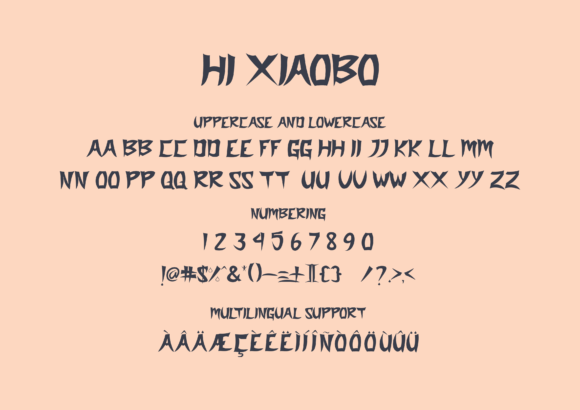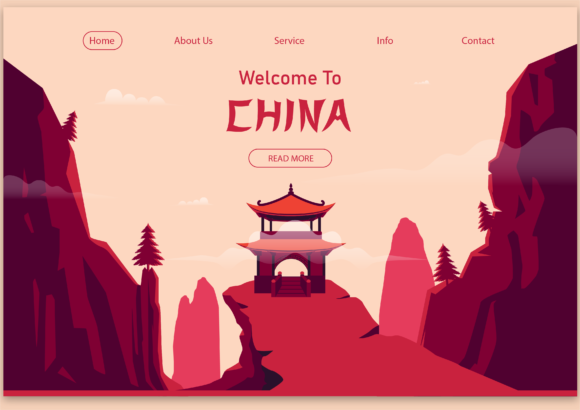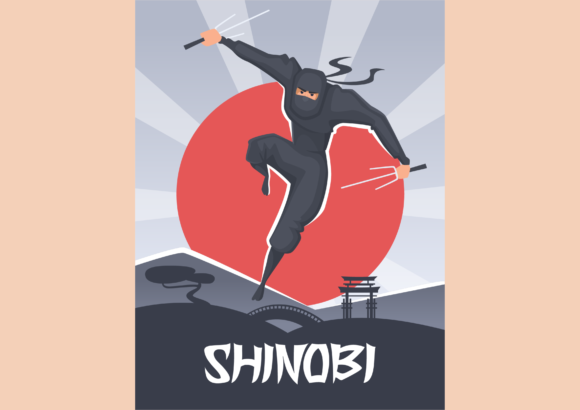
Hi Xiaobo is an incredibly unique, Chinese inspired display font.
It will look stunning on any food menu, poster flyer or print Use this font for your designs and explore its endless possibilities.